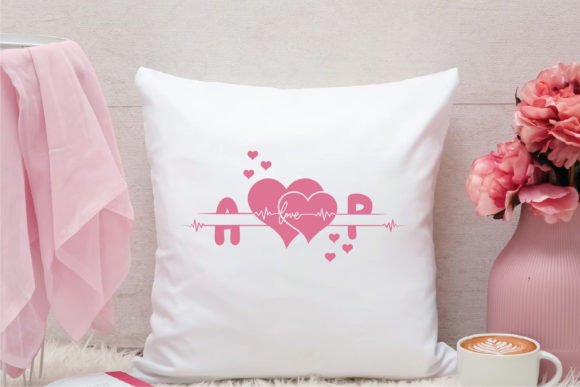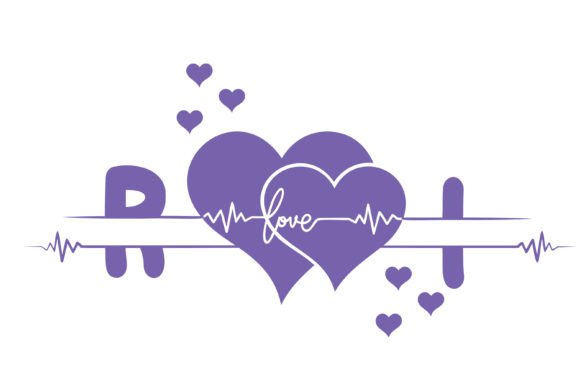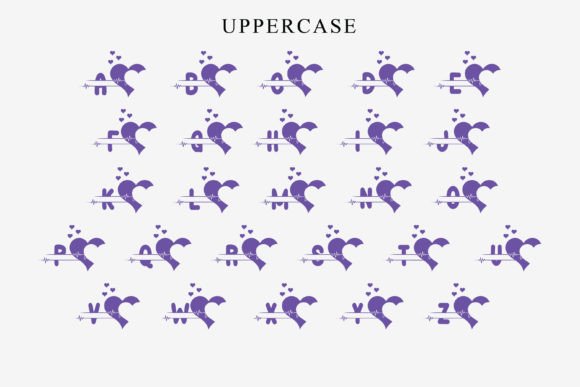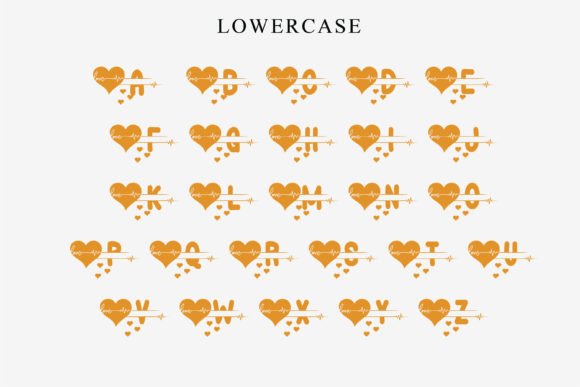
Introduction to Couple Heart Font
Couple Heart is a unique and adorable decorative monogram font.
It will beautifully complement your Valentineโs Cards, t-shirts, invitations, book covers, posters, etc .